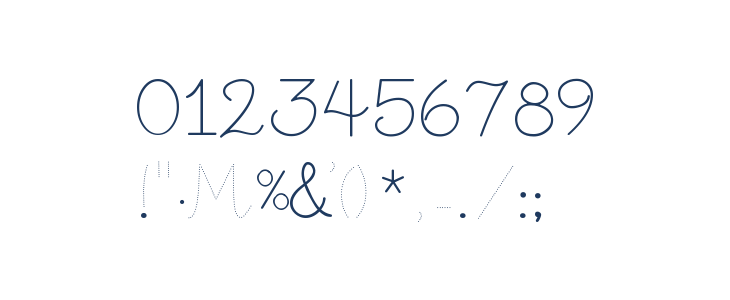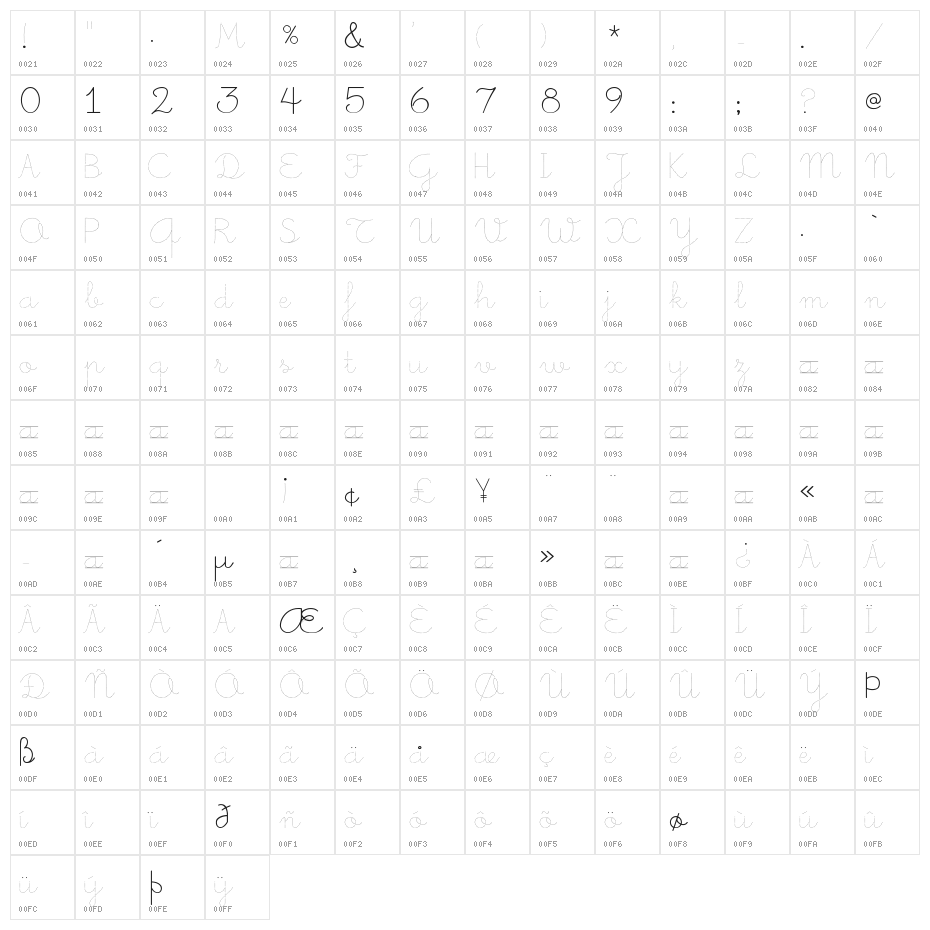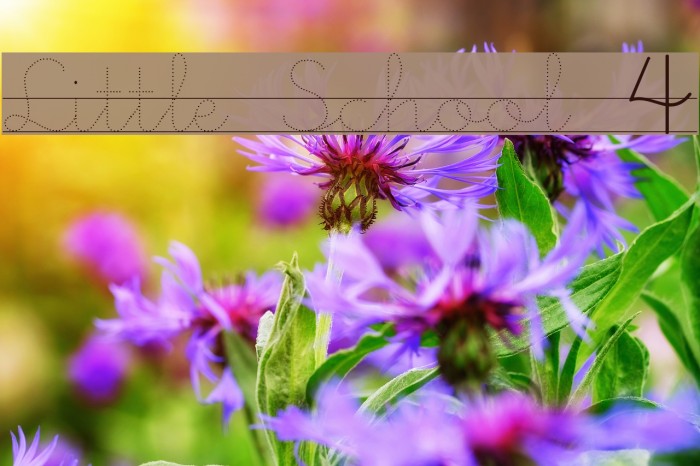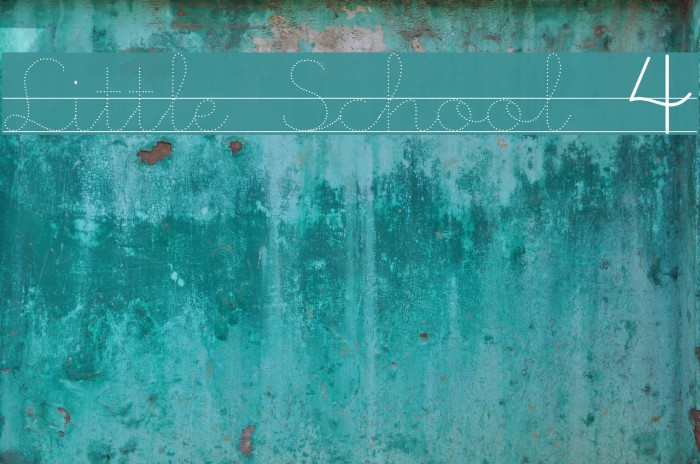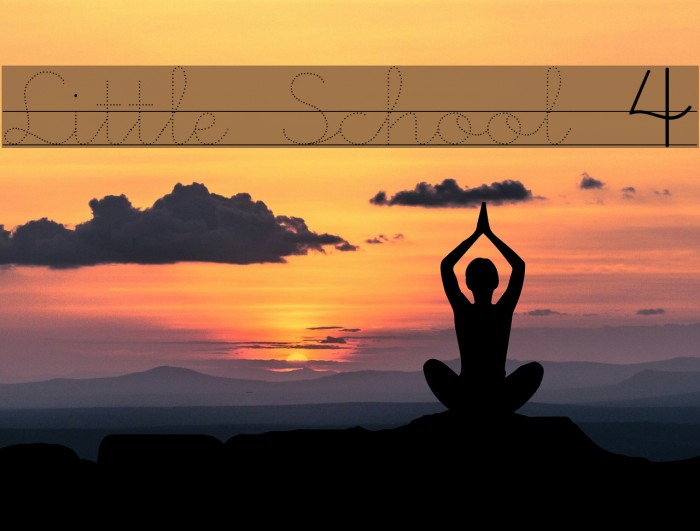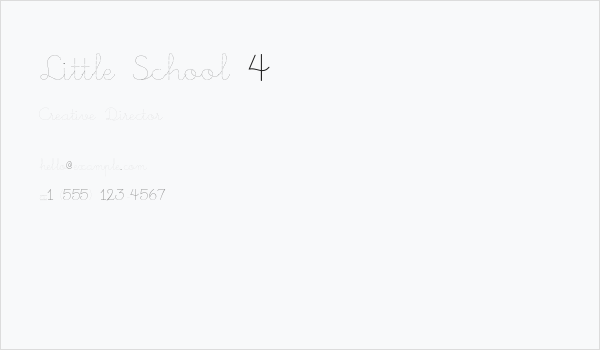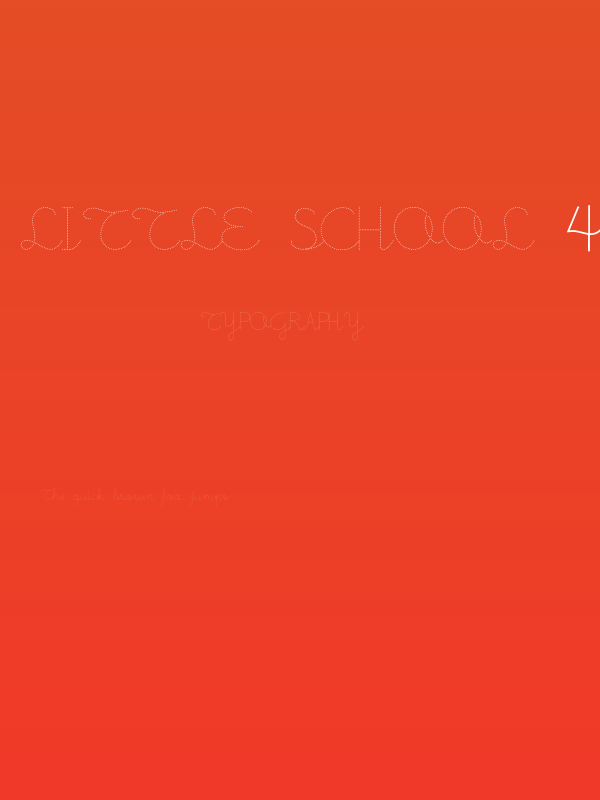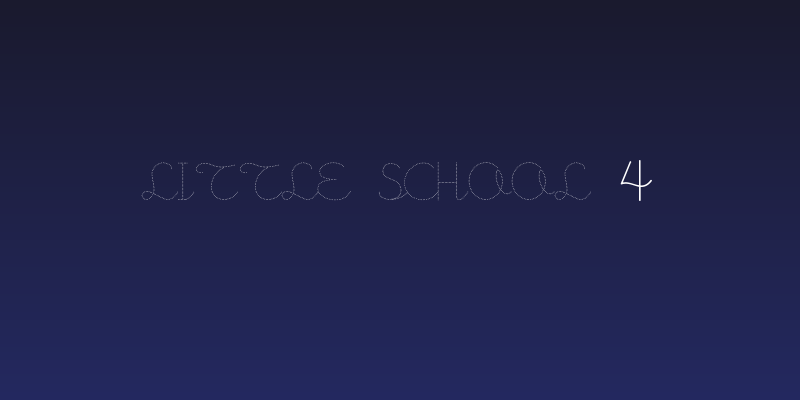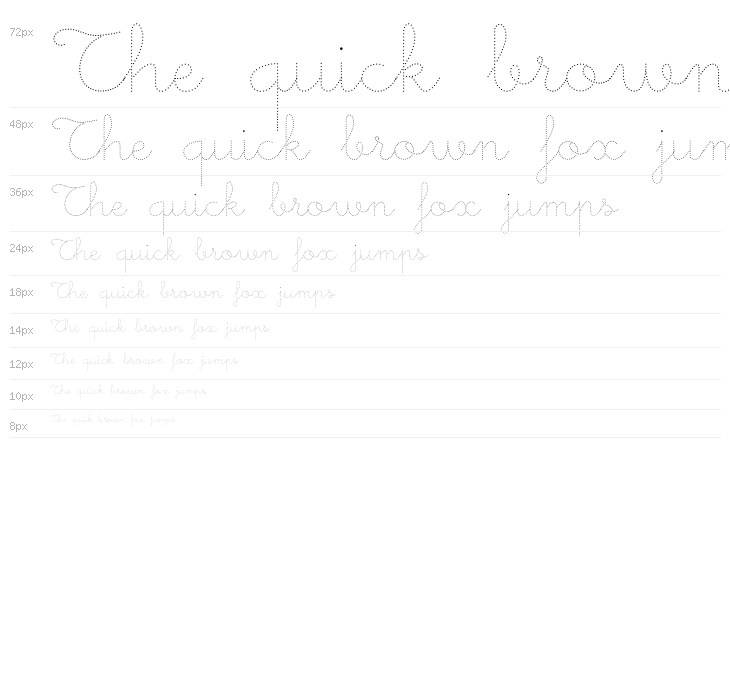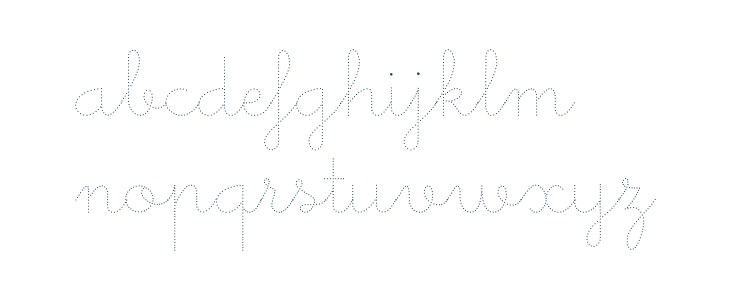
Little School 4 Font
Little School 4 Description
This font is designed to resemble traditional handwriting practice sheets, often used in educational settings for teaching children how to write. The uppercase and lowercase letters are connected with dotted lines, guiding the user to trace over them. The numbers and special characters are presented in a clear, bold style, making them easy to read and trace. The overall design is simple and functional, focusing on clarity and ease of use for beginners. The dotted lines provide a visual guide for forming each letter correctly, emphasizing the flow and connection between strokes.
| Overall Style | Educational |
| Use Case | Educational materials, handwriting practice. |
| Proposed Projects | Ideal for educational materials, handwriting practice sheets, and children's learning tools. |